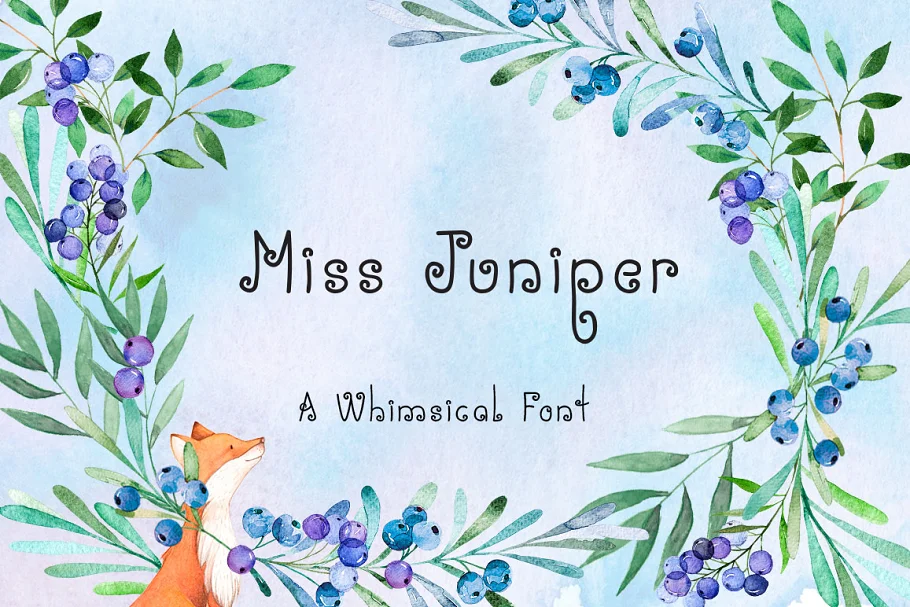
About the Miss Juniper Serif Font
Whimsical serif font Perfect for card making, greeting cards, merchandise, posters, weddings, branding, stationery, websites, blogs and so much more!